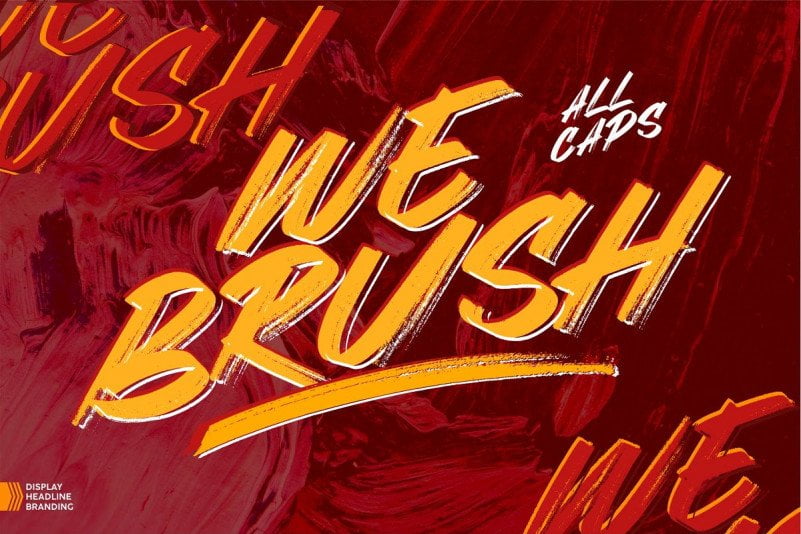
Webrush Brush Font
Webrush is modern brush script font, every single letters have been carefully crafted to make your text looks beautiful.
Webrush Brush Font combines attractive curves with a fresh urban edge; delivering a stylish script which is guaranteed to add an eye-catching appeal to your logo designs, brand imagery, handwritten quotes, product packaging, merchandise & social media posts.